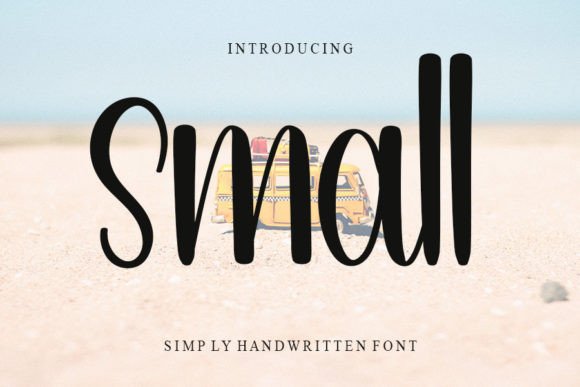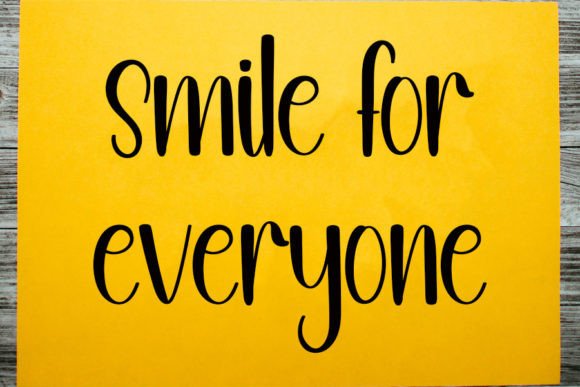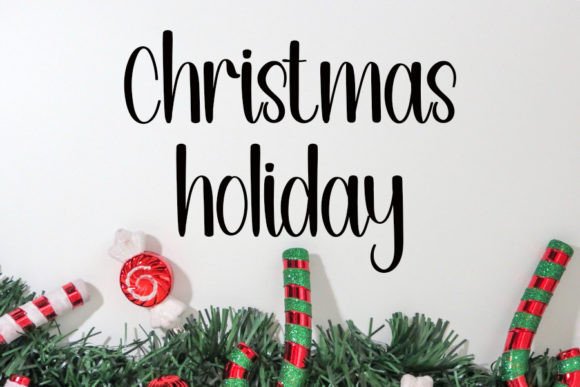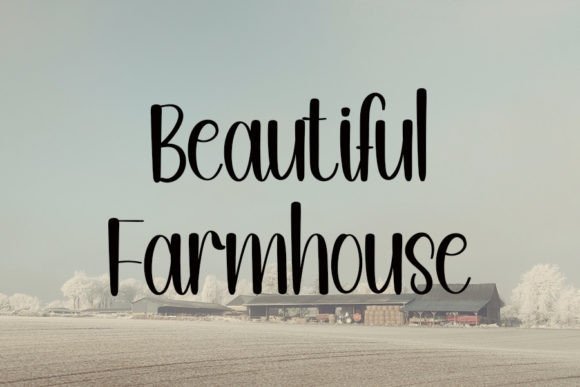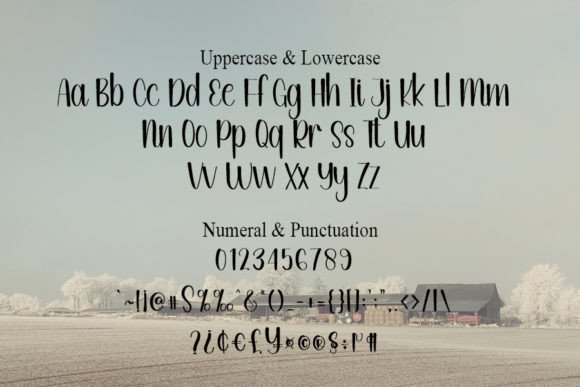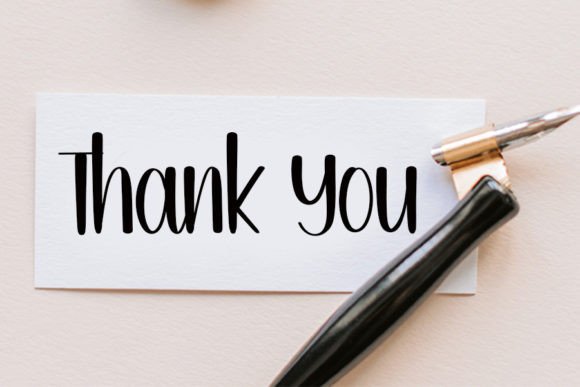
Small Font
About Small Font: Casual Script for Versatile Creative Designs
Small font is a casual and relaxed script typeface designed to bring a charming and approachable vibe to your creative projects. Its versatile style makes it an excellent choice for a wide range of uses, from elegant wedding invitations to eye-catching social media posts.
Versatility for Wedding Invitations and Stationery
The Small font offers a soft and friendly script look, ideal for wedding invitations and stationery. Its flowing, relaxed strokes create an inviting and warm feel, perfect for capturing the spirit of special occasions.
Great Choice for Social Media and Branding
Whether you’re creating social media graphics, branding materials, or promotional content, Smallfont adds a playful yet refined touch. It enhances your designs with a natural handwritten appearance that connects well with audiences.
Design with Ease and Elegance
Smallfont combines casual charm with readability, making it suitable for both digital and print projects. Its clear letterforms ensure your messages are easy to read while maintaining a stylish and elegant aesthetic.
Key Features of Small Font
This font’s relaxed script style allows it to fit effortlessly into various design themes. From personal projects to professional branding, Smallfont delivers flexibility and flair in one package.
How to Use Small Font
Use Smallfont to create invitations, greeting cards, branding logos, or social media posts that stand out. Its versatile and approachable style helps your designs feel authentic and engaging.